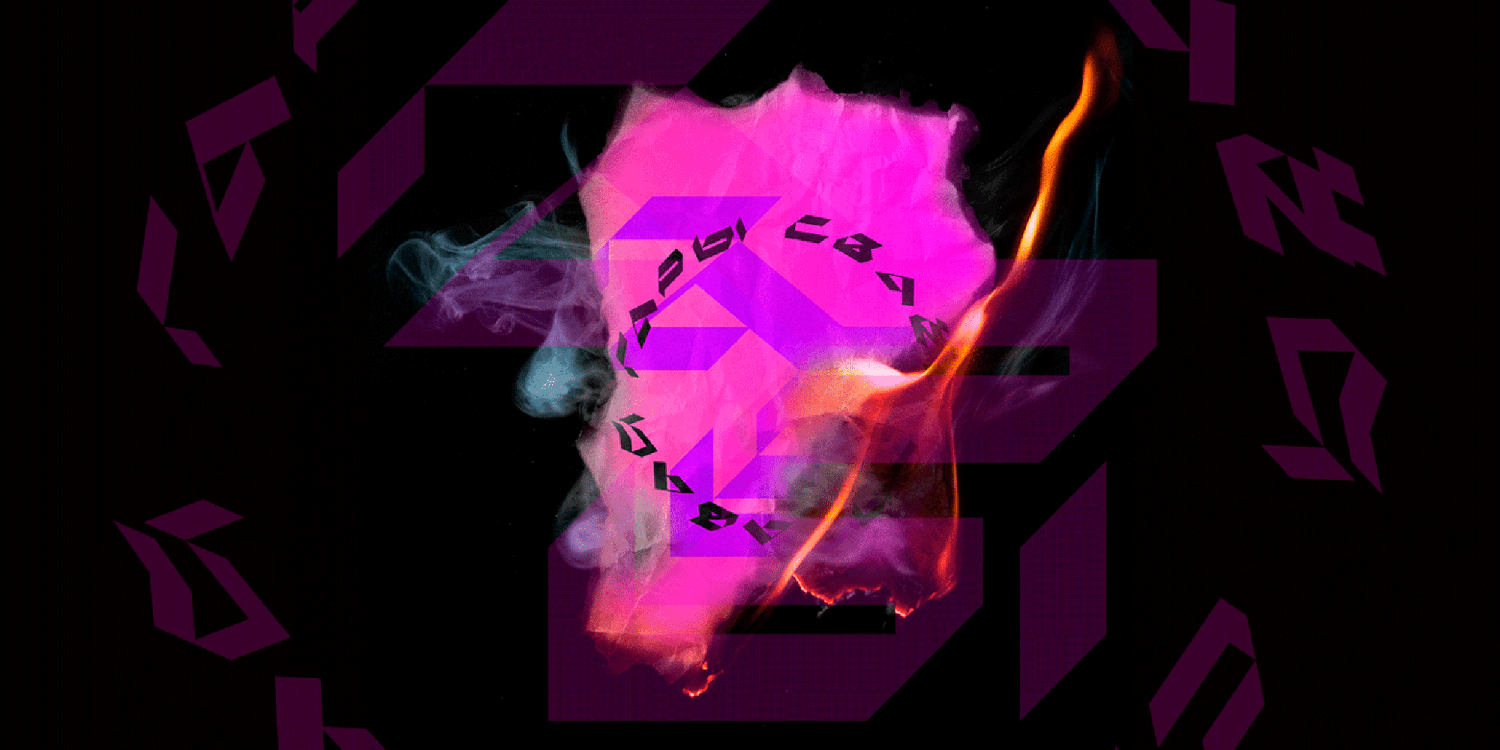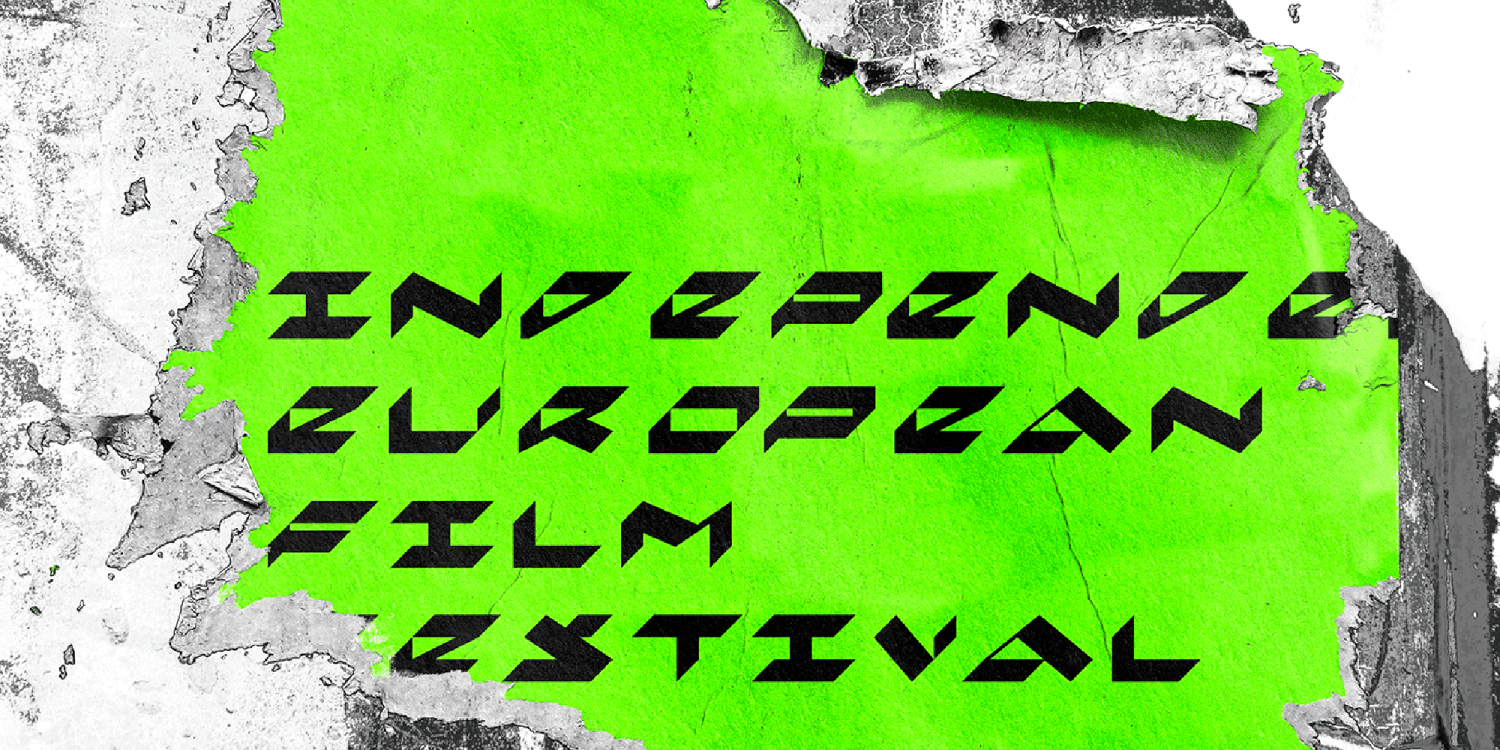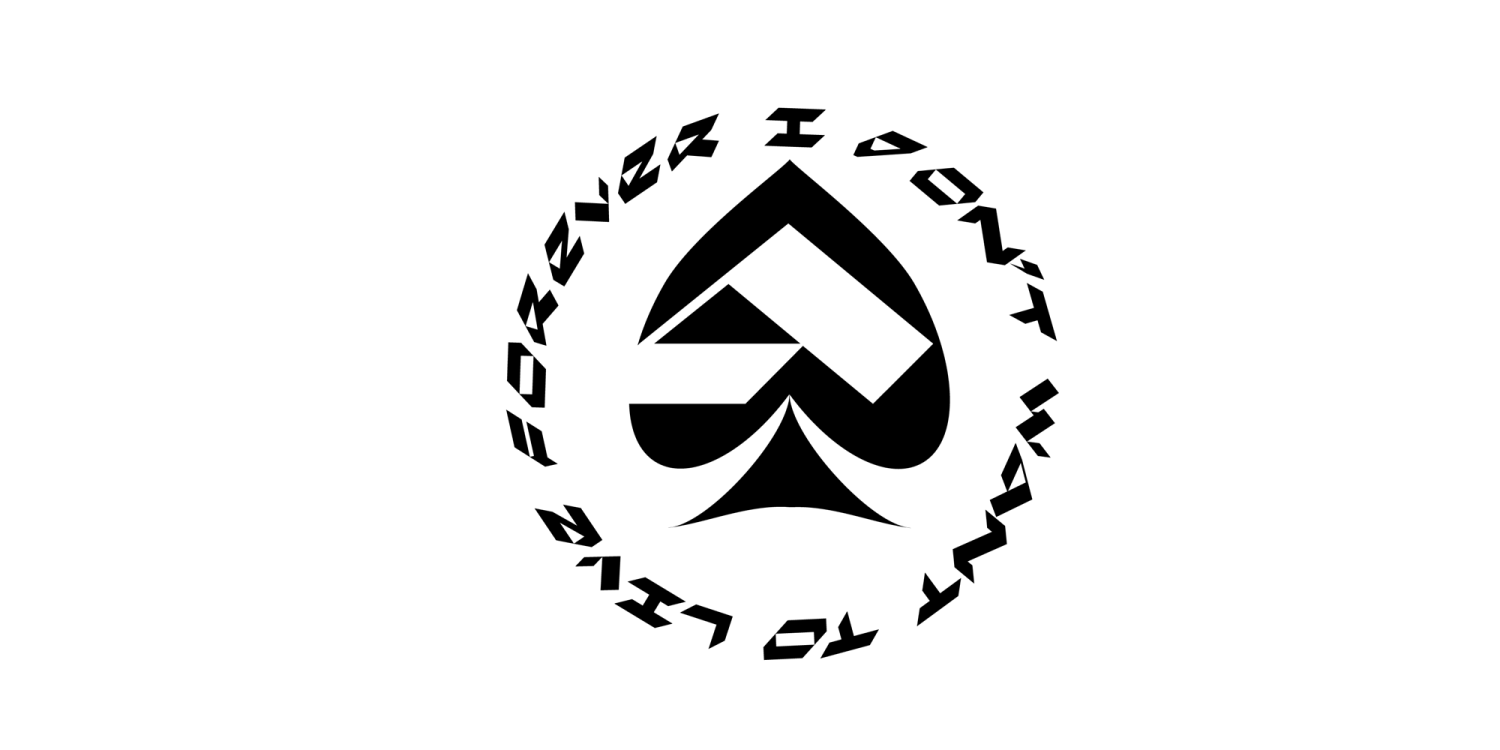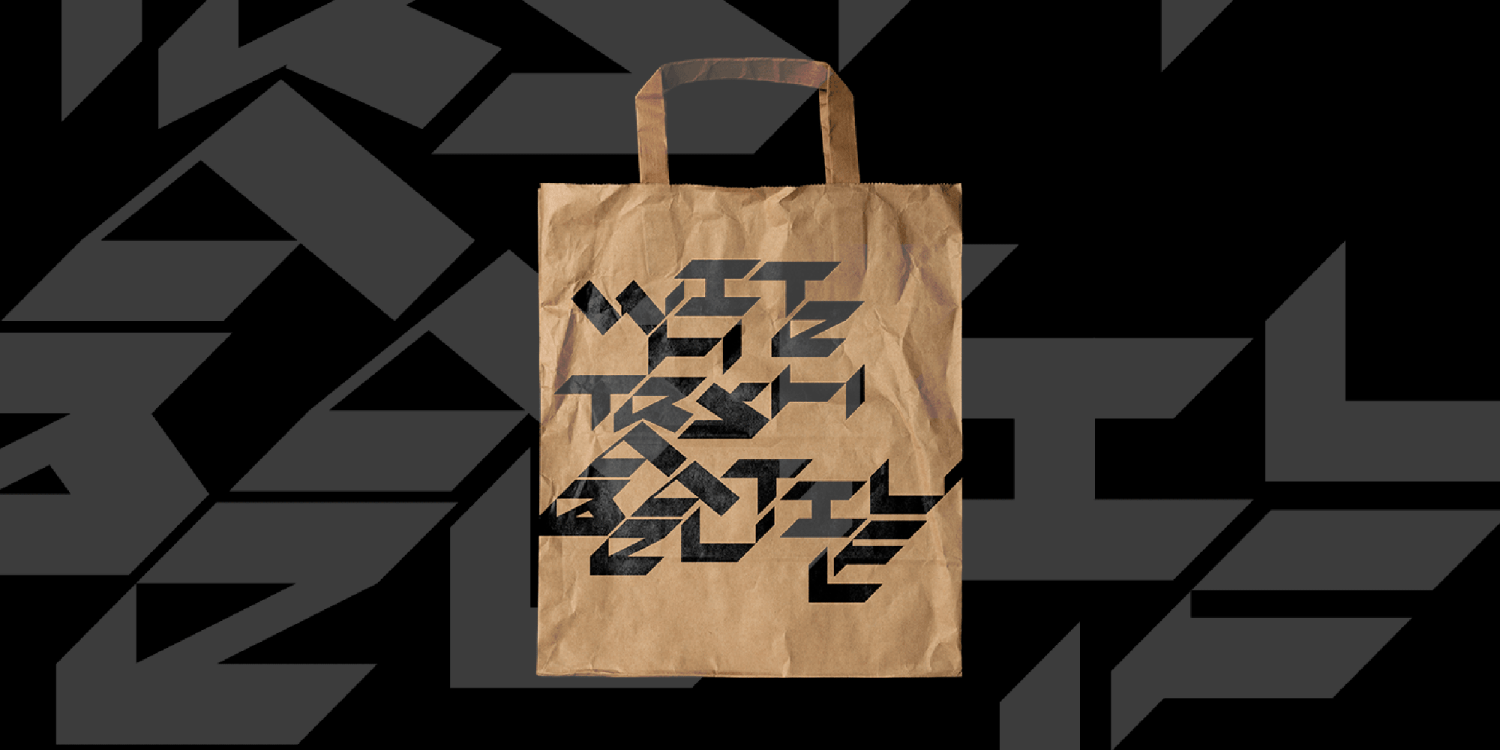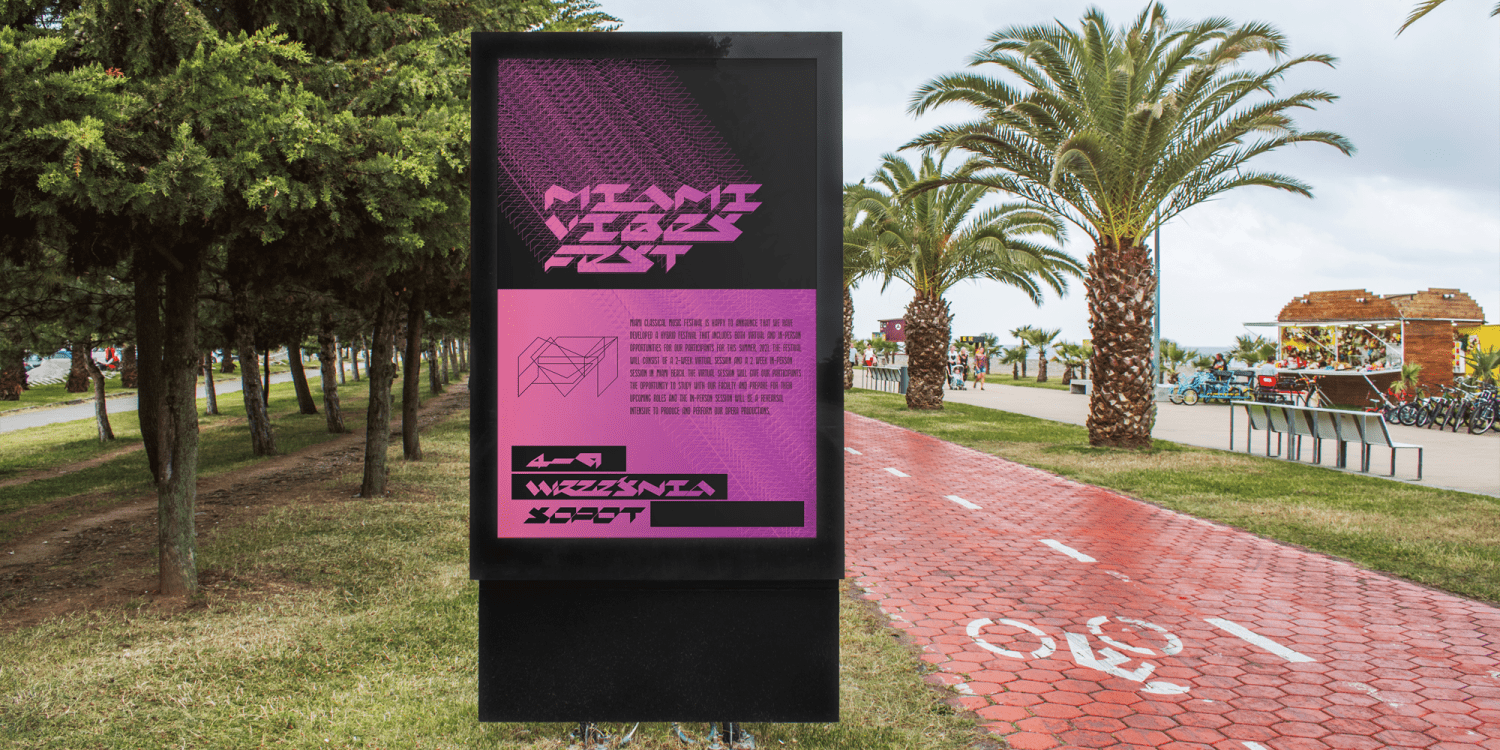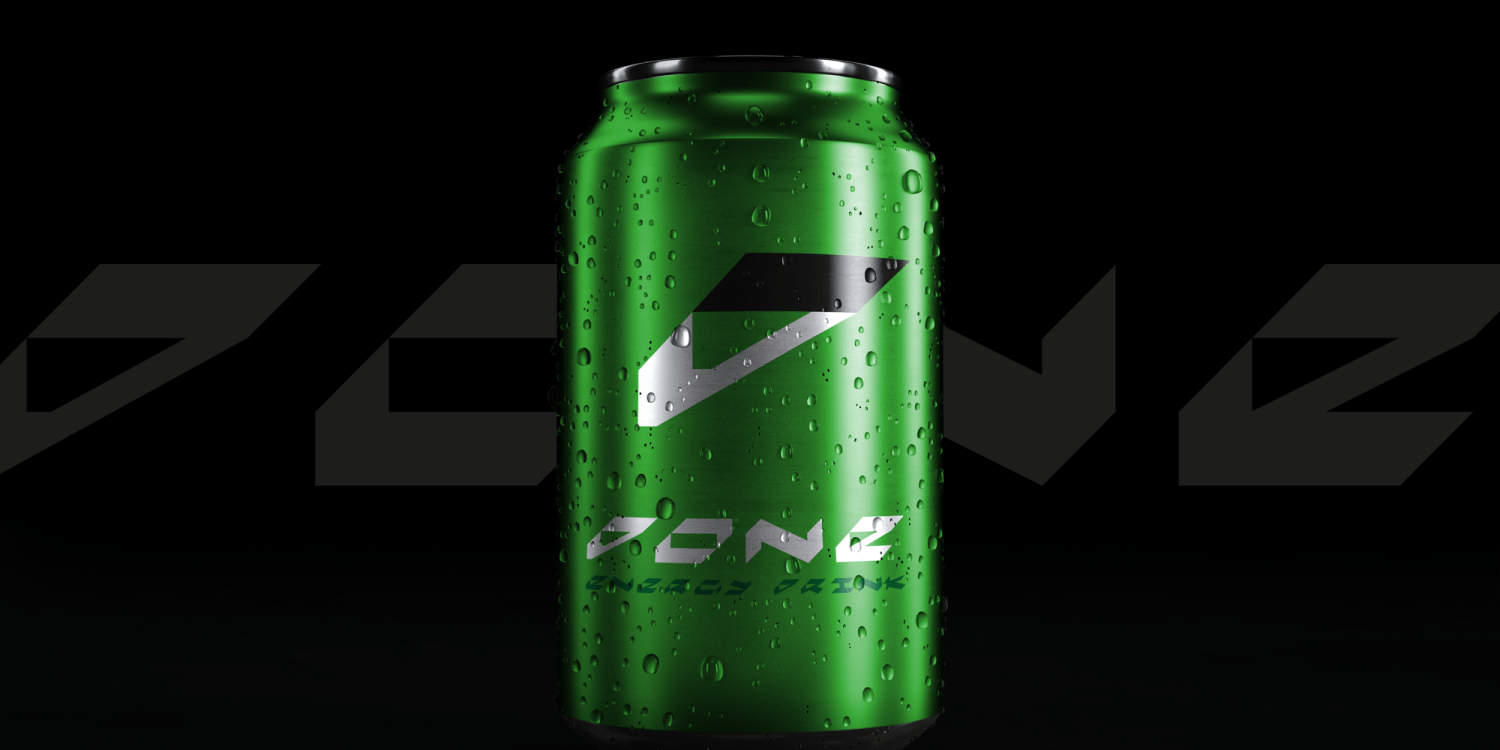
Akoyster
Akoyster — Bold Experimental Blackletter meets Cyberpunk Flair
"experimental contemporary typeface for bold rebel-spirited communication"
Akoyster is a daring, high-impact display typeface designed to make statements. Created by Aliaksei Koval and released by Koval TF, this font fuses the aesthetic intensity of cyberpunk visual culture with the expressiveness of modern calligraphy. It’s built using the broad nib pen technique, with constrained line height and no nib rotation, giving it a unique neo-blackletter flavor.
Key Features
• Fusion of styles: Cyberpunk + Contemporary Calligraphy + Neo-Blackletter — generating a bold, edgy tone.
• Unicase design: Single case set (no separate upper-/lowercase), which gives materials a unified, strong visual rhythm.
• Extended script support: Includes basic and accented Latin, Cyrillic glyphs, punctuation, special marks, figures which broadens its international usability.
Intended Use & Applications
Akoyster shines in visual contexts where you want something expressive, unconventional, and attention-grabbing. Perfect for:
• Posters, flyers, album covers
• Branding with attitude (logos, wordmarks)
• Packaging where avant-garde or rebellious mood is a plus
• Urban, digital, or entertainment graphics
• Titles, headers, or visuals needing dramatic display — not ideal for long body text due to its decorative intensity
Pros & Things to Watch
Pros:
• Very strong visual presence: unique shapes, unsettled edges, stylized strokes that make designs stand out.
• Flexible across Latin and Cyrillic, making it useful in multilingual contexts.
• Excellent for branding and display pieces where character and attitude matter.
Things to watch:
• At small sizes or in dense text blocks, the decorative and stylized features may hamper legibility.
• Because of its strong style, it’s not suited for neutral or corporate contexts where restraint is essential.
• Needs careful spacing and layout to avoid overcrowding or visual fatigue.